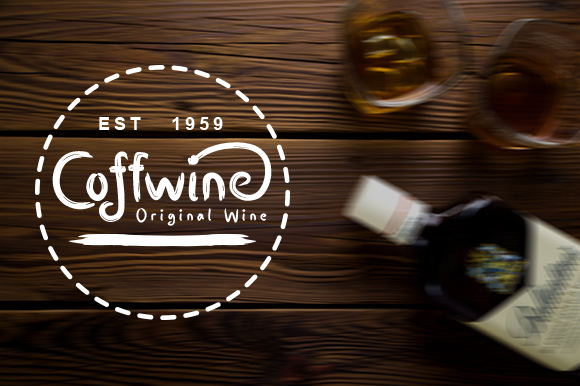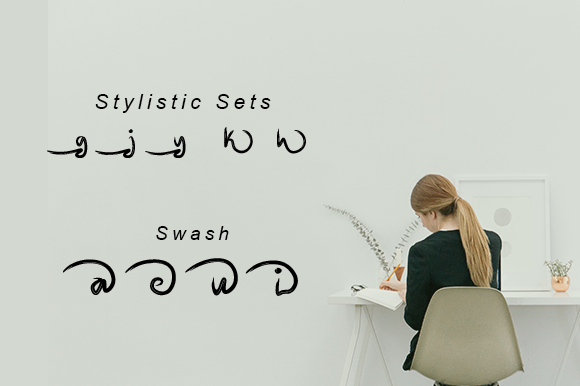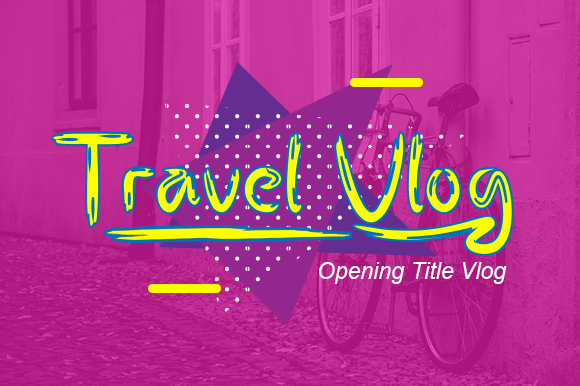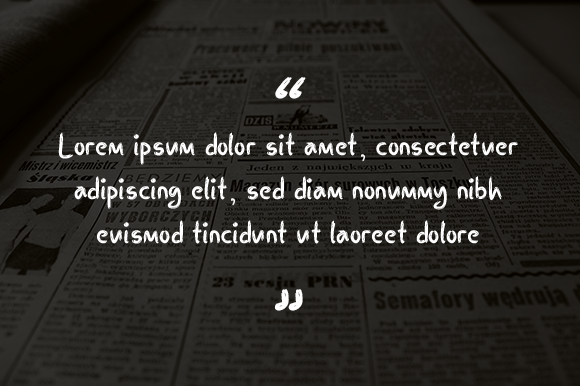
Discover the Charm of Corffa Brushes Font: A Beautiful Handwritten Style
Are you a designer or crafter looking for a unique and inspiring font to elevate your creative projects? Look no further than Corffa Brushes, a fun and beautiful handwritten font with a brush style that’s sure to capture your imagination. In this article, we’ll explore the features and benefits of Corffa Brushes, and show you how to get the most out of this stunning font.
What is Corffa Brushes Font?
Corffa Brushes is a carefully crafted handwritten font that boasts a distinctive brush style, giving it a fresh and contemporary charm. The font’s unique character is perfect for a wide range of creative projects, from digital designs and social media graphics to craft projects and handmade cards. With its fluid strokes and dynamic texture, Corffa Brushes adds a touch of personality and whimsy to any design.
Key Features of Corffa Brushes Font
- Handwritten style: Corffa Brushes is a genuine handwritten font, carefully crafted to capture the nuances and imperfections of human handwriting.
- Brush texture: The font features a distinctive brush texture, giving it a tactile and organic feel that’s perfect for crafty and DIY projects.
- Contemporary charm: Corffa Brushes has a fresh and modern aesthetic that’s ideal for designers and crafters looking for a unique and stylish font.
- Versatile: The font is suitable for a wide range of creative projects, from digital designs and social media graphics to craft projects and handmade cards.
Benefits of Using Corffa Brushes Font
So why choose Corffa Brushes for your next creative project? Here are just a few benefits of using this amazing font:
- Add personality to your designs: Corffa Brushes is a font that’s full of character and personality, making it perfect for designers and crafters who want to add a touch of whimsy to their work.
- Stand out from the crowd: With its unique brush style and handwritten aesthetic, Corffa Brushes is a font that’s sure to make your designs stand out from the crowd.
Corffa Brushes is a versatile font that can be used in a wide range of creative projects. Here are a few ideas to get you started:
- Social media graphics: Use Corffa Brushes to create eye-catching social media graphics, including Facebook posts, Instagram stories, and Twitter headers.
- Handmade cards and gifts: Add a personal touch to your handmade cards and gifts with Corffa Brushes.
- Digital art: Use Corffa Brushes to create stunning digital art, including illustrations, typography, and mixed media designs.
Corffa Brushes is a beautiful and inspiring font that’s perfect for designers and crafters looking for a unique and stylish handwritten style. With its distinctive brush texture and contemporary charm, Corffa Brushes is sure to add a touch of personality and whimsy to any creative project. So why wait? Download Corffa Brushes today and start exploring the endless possibilities of this amazing font!